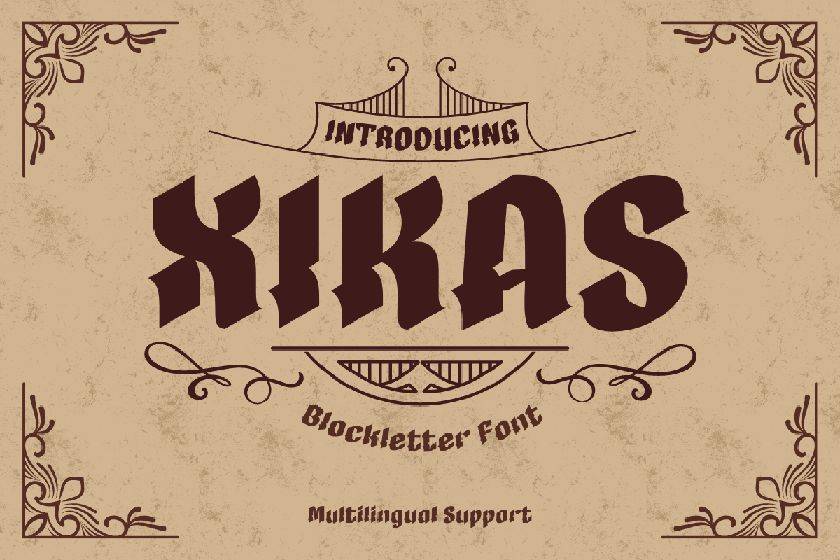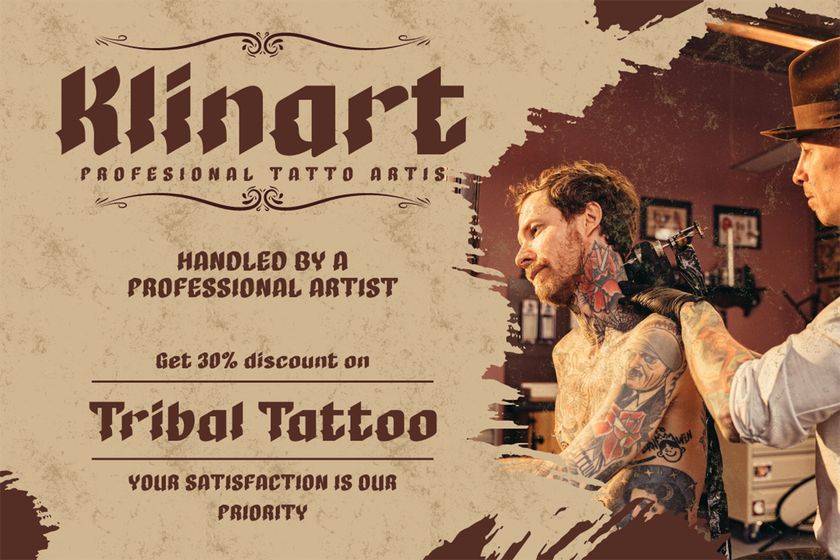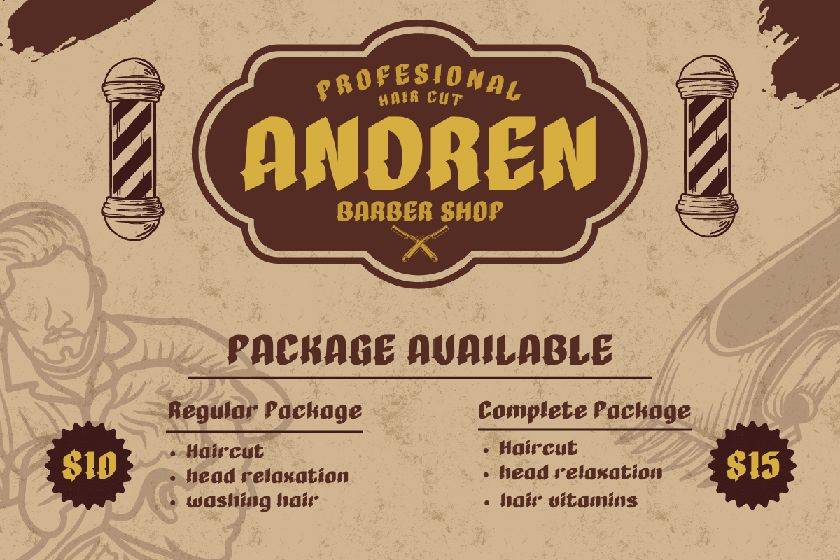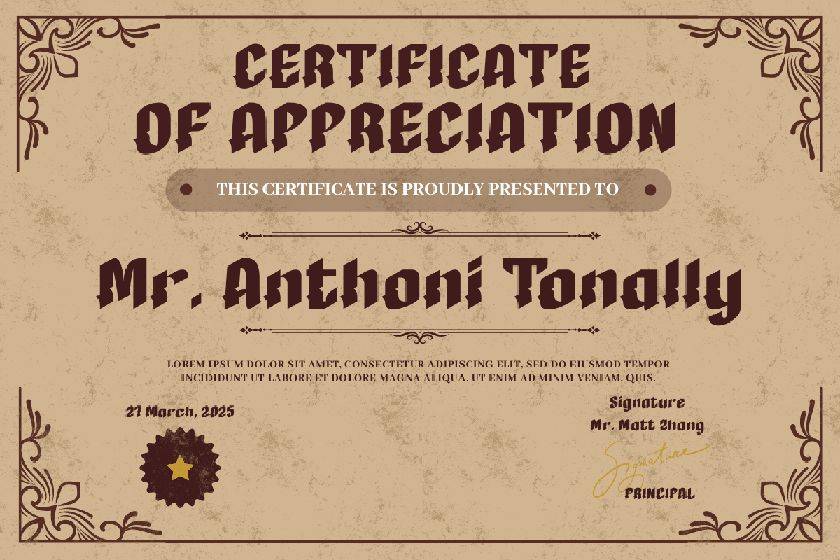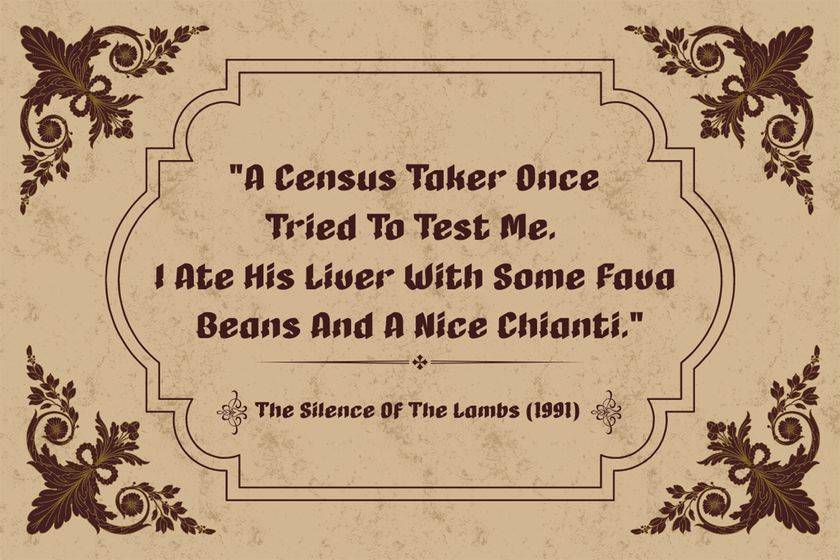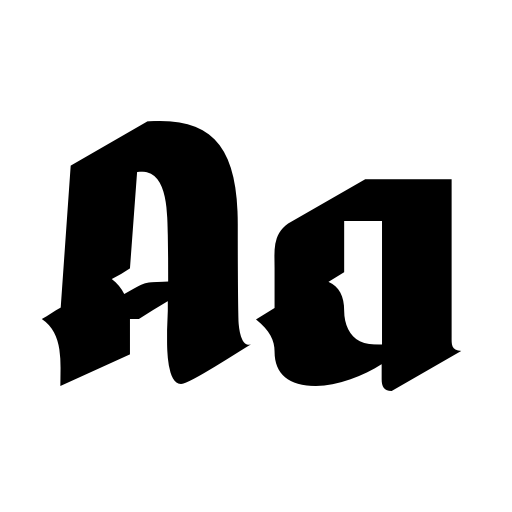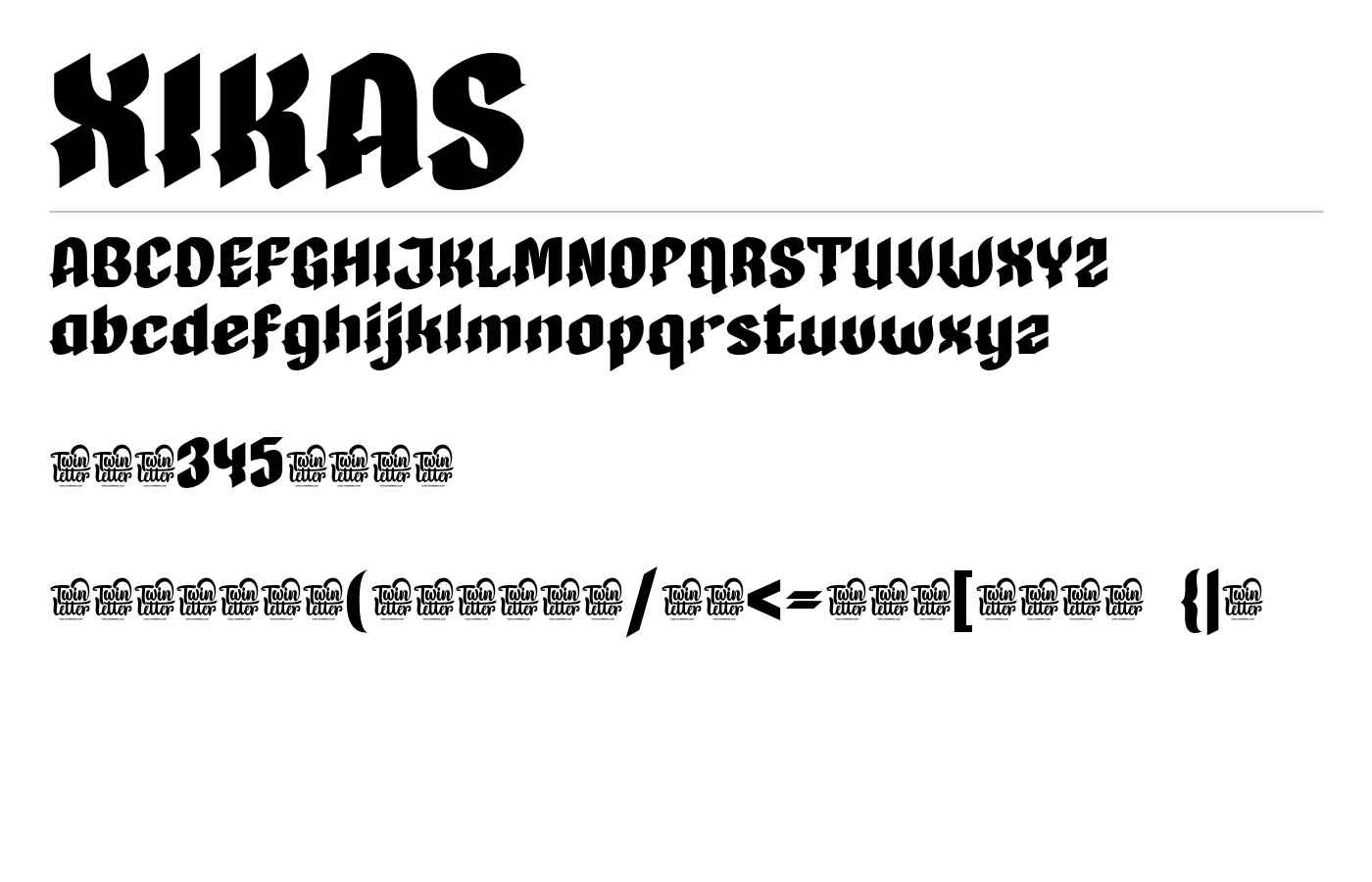
Xikas is a bold blackletter-inspired serif font with strong, angular strokes and a condensed width, giving it a powerful and dramatic presence. Its high contrast and sharp edges evoke a vintage, gothic aesthetic, making it perfect for impactful headlines, logos, and branding that require a touch of old-world strength and character. This font works best in display settings where its unique style can stand out and create a memorable impression.
Xikas Font
About Xikas Font